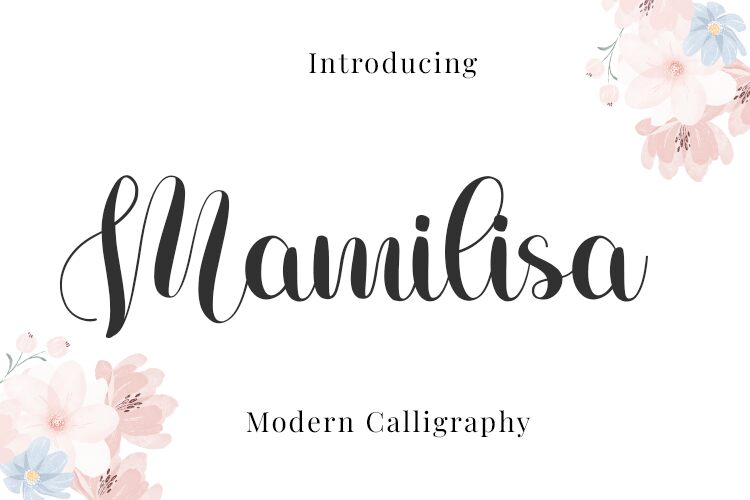
Mamilisa, a stunning calligraphy font by Bearytype, exudes elegance and sophistication. With its graceful curves and delicate strokes, this font is perfect for adding a touch of class to wedding invitations, event signage, and luxury branding projects. Whether you're designing for a high-end fashion brand or creating romantic stationery, Mamilisa's flowing script will captivate your audience. Its versatility shines through in both digital and print mediums. Embrace the timeless beauty of Mamilisa and elevate your designs to new heights with this enchanting calligraphy font.
Mamilisa